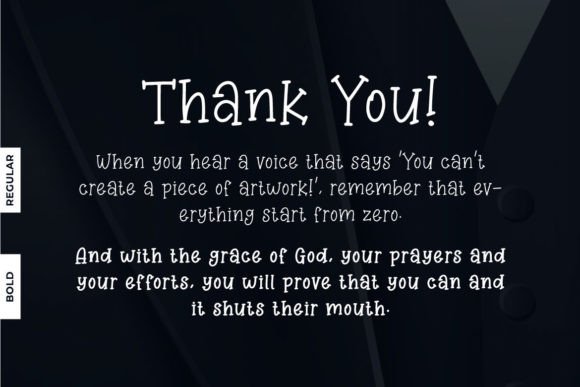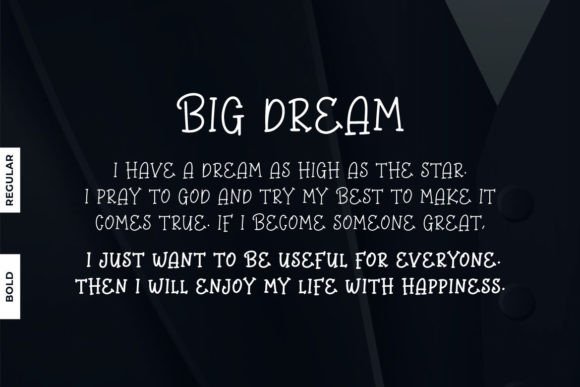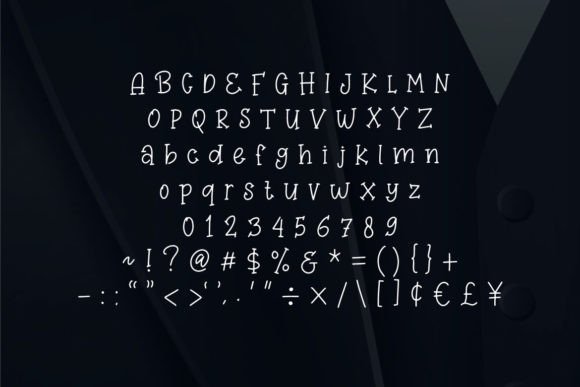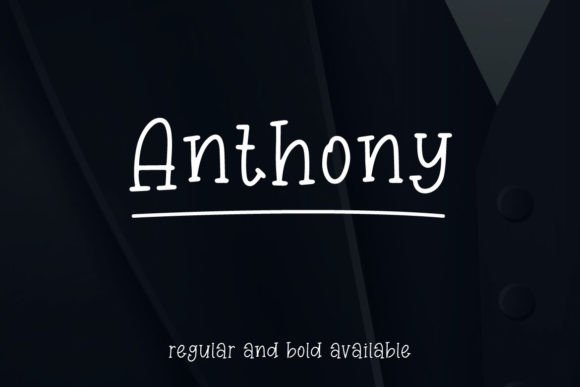
Introducing Anthony Font: The Epitome of Clean Minimalism
In the realm of typography, fonts play a pivotal role in conveying messages, evoking emotions, and creating a lasting impression. Among the myriad of fonts available, **ANTHONY** stands out as a clean minimalist font that has garnered significant attention from designers, crafters, and artists alike. In this comprehensive article, we’ll delve into the world of Anthony Font, exploring its features, applications, and the creative possibilities it offers.
The Essence of Anthony Font
Anthony Font is a meticulously crafted typeface characterized by its simplicity, elegance, and versatility. Its clean lines, subtle curves, and uncluttered design make it an ideal choice for a wide range of applications, from digital media to print materials. The font’s minimalist approach ensures that it remains legible and aesthetically pleasing, even at various sizes and resolutions.
Key Features of Anthony Font
- Clean and Minimalist Design: Anthony Font boasts a sleek and uncomplicated design, making it perfect for projects that require a modern and sophisticated look.
- High Legibility: The font’s clear and concise letterforms ensure that your message is conveyed effectively, regardless of the medium or platform.
- Versatile: Anthony Font can be used in various contexts, including flyers, book titles, advertisements, social media content, logos, and more.
- Scalable: The font remains crisp and clear at different sizes, making it suitable for both digital and print applications.
Applications of Anthony Font
The versatility of Anthony Font makes it an excellent choice for a multitude of projects. Here are some examples of how you can utilize this font:
- Flyers and Brochures: Create eye-catching promotional materials that effectively communicate your message.
- Book Titles and Covers: Add a touch of sophistication to your book’s cover and title pages.
- Advertisements: Use Anthony Font to create compelling ad copy that grabs attention.
- Social Media Content: Enhance your social media presence with clean and engaging typography.
- Logos and Branding: Establish a strong brand identity with a custom logo designed using Anthony Font.
Tips for Using Anthony Font Effectively
To maximize the impact of Anthony Font, consider the following tips:
- Pair with Other Fonts: Combine Anthony Font with complementary fonts to create visual interest and hierarchy.
- Experiment with Colors: Try different color schemes to find the perfect match for your project.
- Pay Attention to Spacing: Ensure adequate spacing between letters and lines to maintain readability.
- Use it Consistently: Apply Anthony Font consistently throughout your project to create a cohesive look.
In conclusion, Anthony Font is a powerful tool for designers and crafters seeking to create visually stunning and effective projects. Its clean minimalist design, high legibility, and versatility make it an excellent choice for a wide range of applications. By incorporating Anthony Font into your workflow, you’ll be able to elevate your designs, communicate your message more effectively, and leave a lasting impression on your audience.
Whether you’re a seasoned designer or a crafty enthusiast, Anthony Font is an excellent addition to your typographic arsenal. So, go ahead and explore the creative possibilities offered by this exceptional font.